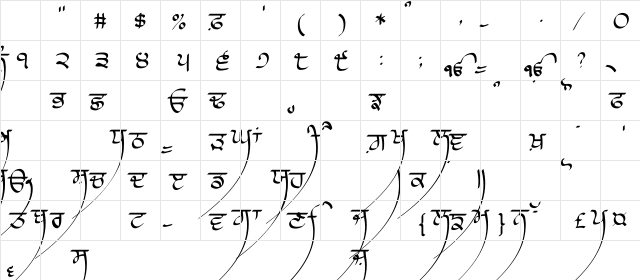
Lanma Script 3 Light Medium Script Font Preview
| Style | Medium Script |
| Foundry | Paul Alan Grosse |
| Designer | Paul Alan Grosse |
Design Context for Lanma Script 3 Light Typeface
Lanma Script 3 Light flows with the natural rhythm of handwritten lettering, making it ideal for designs that call for warmth and personal expression. The delicate stroke weight brings airiness and refinement to layouts.
Font Pairing: Combine Lanma Script 3 Light with a simple geometric sans for maximum contrast — the tension between flowing curves and clean structure is a classic typographic pairing.
Pro Tip: Pair Lanma Script 3 Light with a clean sans-serif for supporting text. The contrast between fluid script and geometric structure creates an elegant typographic hierarchy.